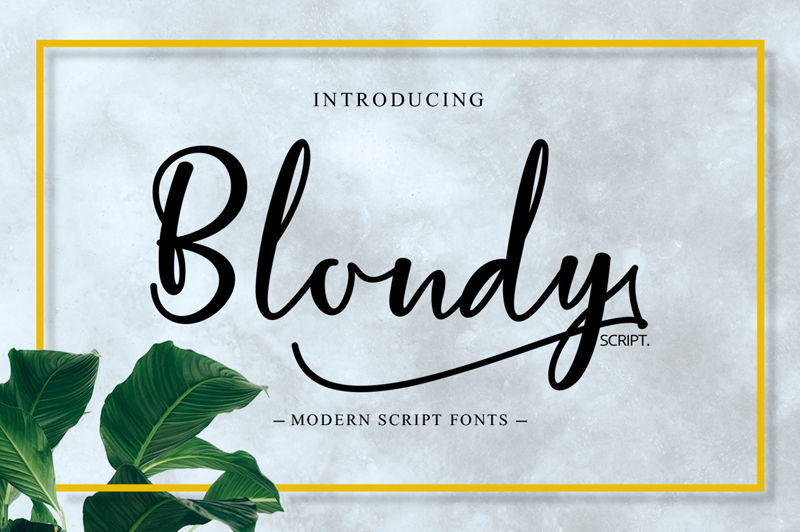
Blondy Script Font
Blondy Script Font is perfect for feminine beauty salon branding, elegant fashion boutique logos, romantic wedding stationery, luxury cosmetics packaging, sophisticated lifestyle blogs, graceful personal branding, upscale jewelry marketing, and charming social media graphics.
This font is exciting because it radiates luminous charm with flowing letterforms that capture the golden elegance and sophisticated beauty of sun-kissed sophistication and radiant femininity. Blondy Script Font brings glamorous grace to designs through its silky curves and luminous styling that feels like handwritten love letters penned in liquid gold and blessed with starlight. The font's radiant character makes it perfect for brands that celebrate feminine beauty and want to communicate elegance, glamour, and the kind of golden sophistication that makes hearts flutter and spirits soar.
The Blondy Script Font family includes Regular, Bold, Light, Glamour, Golden, and Elegant variants, each designed to capture different aspects of luminous beauty while maintaining the font's characteristic radiant appeal and feminine sophistication. The character set features graceful flourishes that enhance the font's connection to golden glamour and elegant femininity.
Whether you're creating branding for beauty businesses, designing materials for elegant celebrations, or developing content that needs to project golden sophistication, Blondy Script Font Free Download delivers the luminous typography that captures the essence of radiant beauty and feminine elegance. This remarkable typeface transforms text into expressions of golden grace that resonate with the same warm radiance and sophisticated charm found in the most glamorous moments of feminine beauty, ensuring your message communicates the brilliant confidence and elegant allure that makes every woman feel like she's glowing with inner light and golden sophistication.